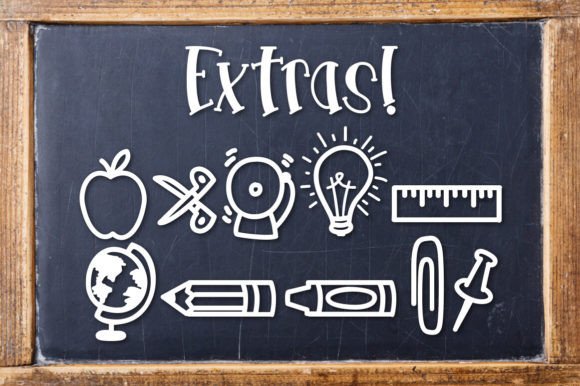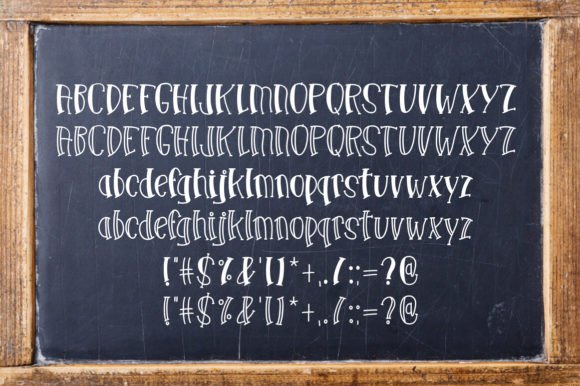
Introduction to School Haze Font
As a designer, there’s nothing quite like the thrill of finding the perfect font for a creative project. You’re brainstorming ideas, sketching out concepts, and searching high and low for that one special element that will bring your design to life. And then, suddenly, you stumble upon it: the perfect font that captures the essence of your vision. For those who’ve ever experienced this ‘aha’ moment, we’re excited to introduce the School Haze Font – a charming, hand-drawn typeface that’s sure to elevate your designs and leave a lasting impression.
Whether you’re working on a design resource, crafting a high-quality educational resource, or simply looking for a fun and creative way to express yourself, School Haze Font is the perfect addition to your toolkit.
Key Features of School Haze Font
- High-quality design resource suitable for creative projects, including school-related themes, with a unique, hazy aesthetic.
- Features a transparent background, allowing for seamless integration with any design element or background.
- Designed to be highly legible, even at small font sizes, making it ideal for use in presentations, posters, and other visual aids.
- Unique characteristics include subtle texture and gradient effects, adding depth and visual interest to your design.
- Suitable for use in a variety of creative projects, including school projects, educational materials, and design portfolios.
Honest Review: School Haze Font
I recently stumbled upon the School Haze Font, and I must say it’s been a game-changer for my design projects. As a designer, I’m always on the lookout for high-quality resources that can elevate my creative work. The School Haze Font is a fantastic addition to my design arsenal.
Here are some things that work well: ✨
- Unique and quirky style: The School Haze Font has a distinct, nostalgic feel that sets it apart from other fonts.
- Transparent background: This makes it easy to use the font over various backgrounds without worrying about clutter.
However, there are some limitations: ⚠️
- Limited character set: The School Haze Font only includes basic characters, which might not be suitable for complex projects.
- Not ideal for large text: While the font looks great for small to medium-sized text, it may not be the best choice for large headings or titles.
Overall, I’m impressed with the School Haze Font. It’s a versatile and creative resource that can add a unique touch to various design projects. If you’re looking for a quirky font to spice up your design work, I’d definitely recommend giving the School Haze Font a try.
School Haze Font is a versatile design resource that can be used in a variety of creative projects, including school flyers, business cards, and social media graphics. Its transparent background feature makes it ideal for use in logos and other design elements where a subtle look is desired.
Is the School Haze Font available with a transparent background?
Yes, the School Haze Font is available with a transparent background, making it ideal for use in designs that require a clear background or for layering over images. The font’s transparent background allows for seamless integration with other design elements.